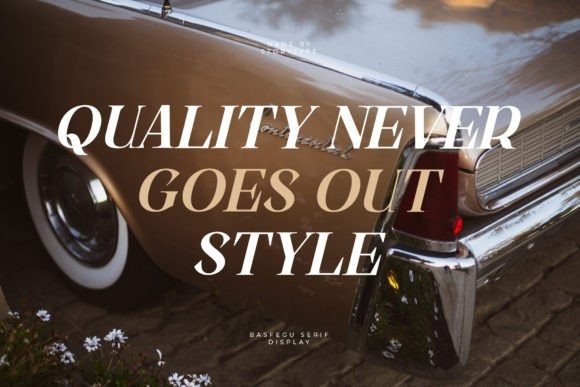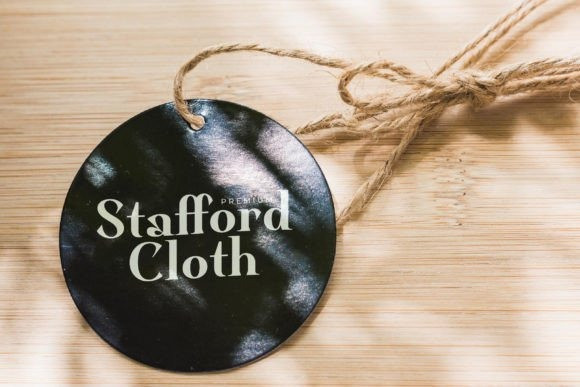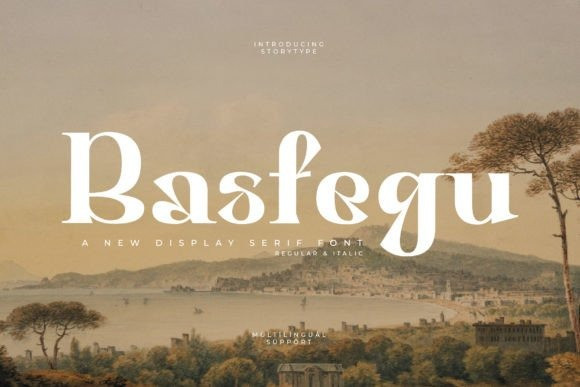
Basfegu Font
Basfegu Serif Font is a modern and stylish serif font that has its own unique appearance. This typeface is perfect for an elegant and luxurious logo, fashion brands, magazines, apparel, lettering, quotes, and so much more.